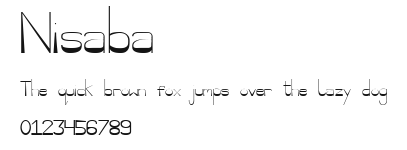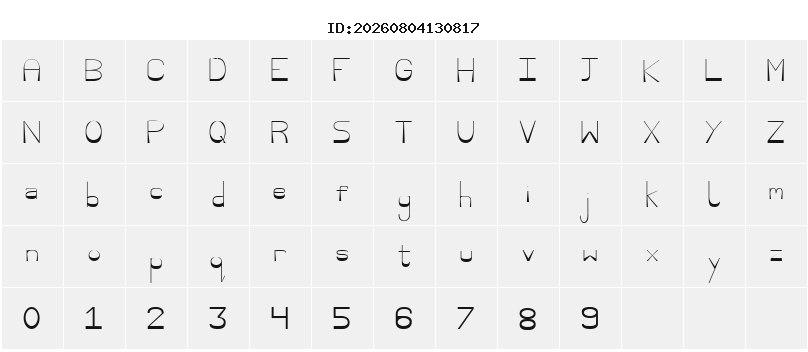
Nisaba Preview
• Font Name: Nisaba
• Character Count: 82
About Nisaba.ttf
Nisaba.ttf is a modern, elegant sans-serif font designed for ultimate readability and visual harmony. Perfect for branding, headlines, web design, and print materials.